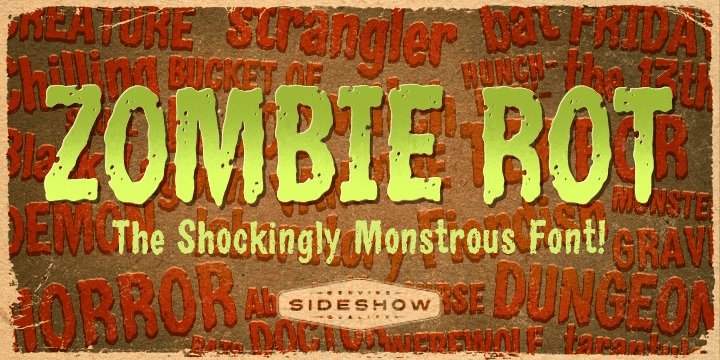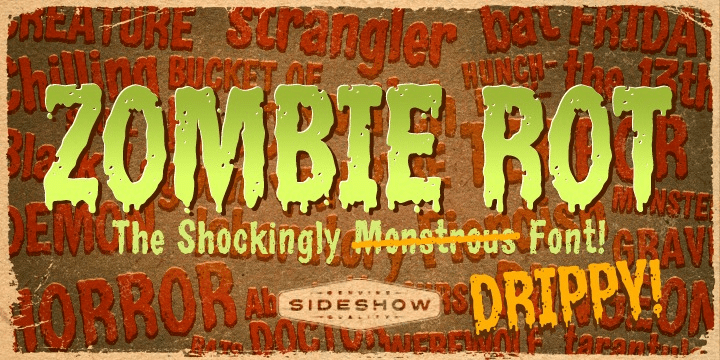
Zombie Rot
Font Family by Sideshow
It's a lovely day for death and decay! So share it with your flesh-eating friends by giving the gift of Zombie Rot!